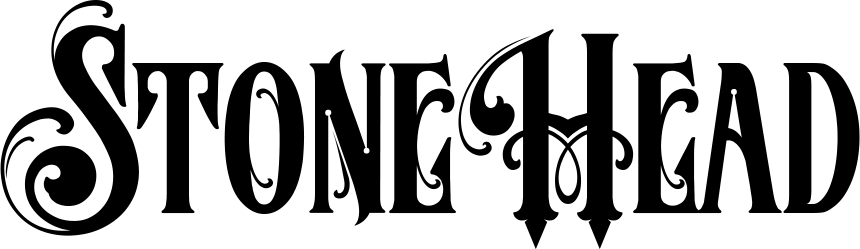
MCF Stone Head Font
Designed byMister Chek
If creating a sense of drama, dynamic, and innovation is very important to you, MCF Stone Head is a suitable font that you have been looking for. This fancy font, which does not support lowercase letters, punctuation, and numbers, has elongated edges and can help enhance the quality of your content in designing social media posts, posters, digital banners, and editing photos.